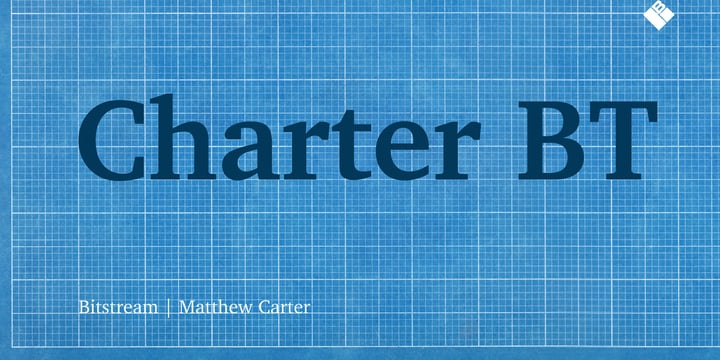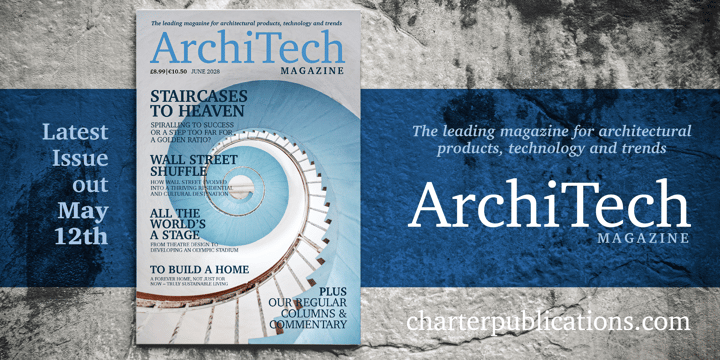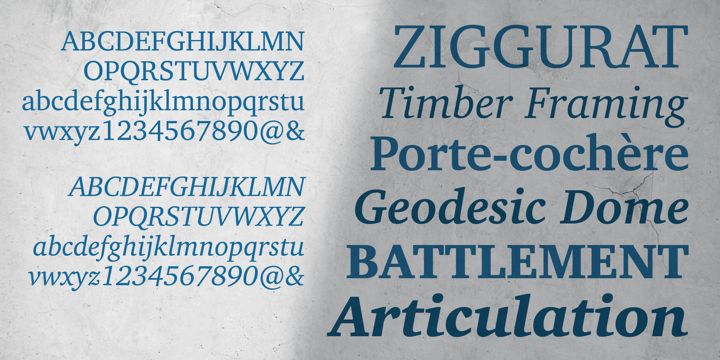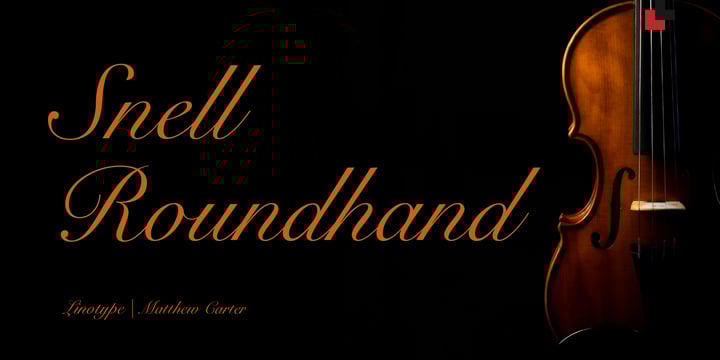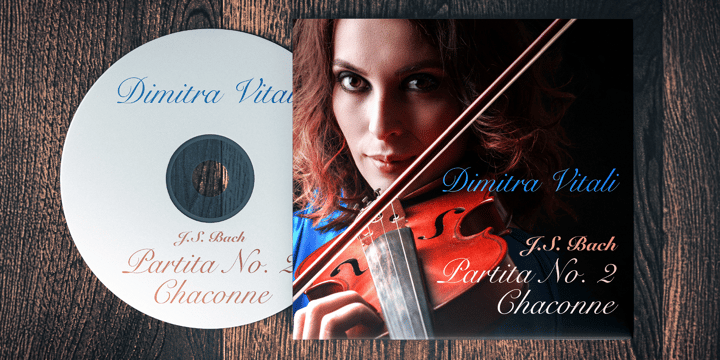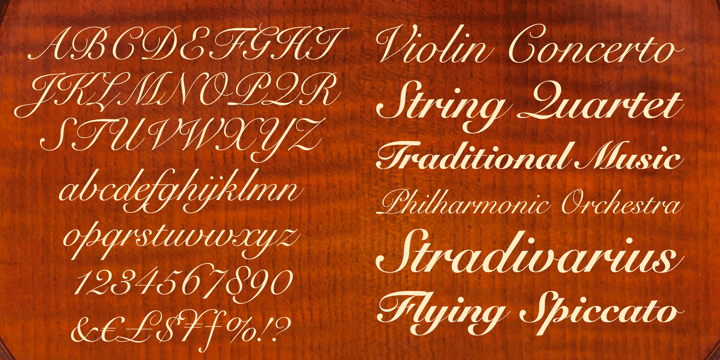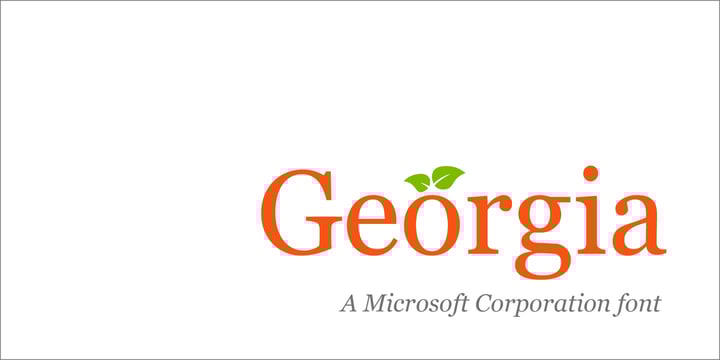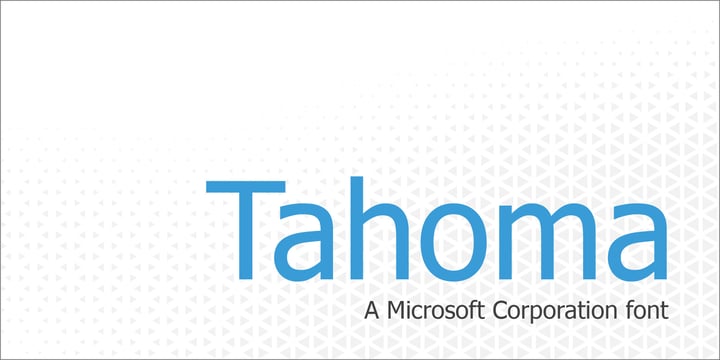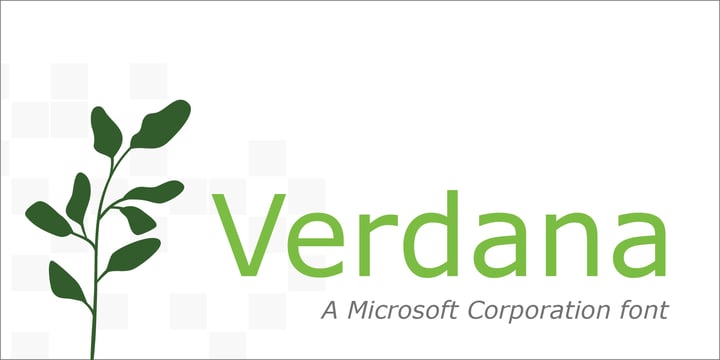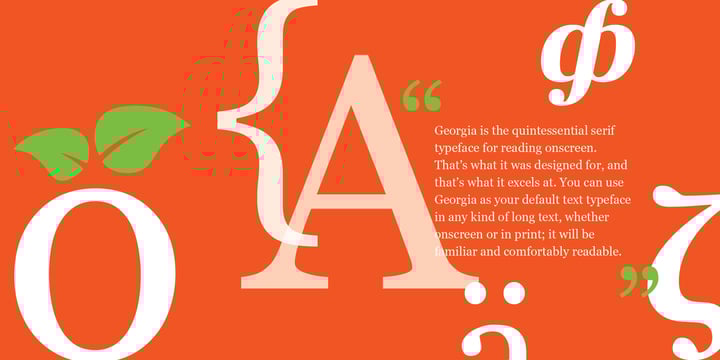
Matthew Carter
Son of Harry Carter, Royal Designer for Industry, contemporary British type designer and ultimate craftsman, trained as a punchcutter at Enschedé by Paul Rädisch, responsible for Crosfield’s typographic program in the early 1960s, Mergenthaler Linotype’s house designer 1965–1981.
Carter co-founded Bitstream with Mike Parker in 1981. In 1991 he left Bitstream to form Carter & Cone with Cherie Cone.
He has in recent years designed Verdana and Georgia for Microsoft; these fonts are tuned to be extremely legible even at very small sizes on the screen.
In 1997 he was awarded the TDC Medal, the award from the Type Directors Club presented to those “who have made significant contributions to the life, art, and craft of typography”.
In 2010, he won a MacArthur Fellowship based on his "exceptional creativity, as demonstrated through a track record of significant achievement, and manifest promise for important future advances".